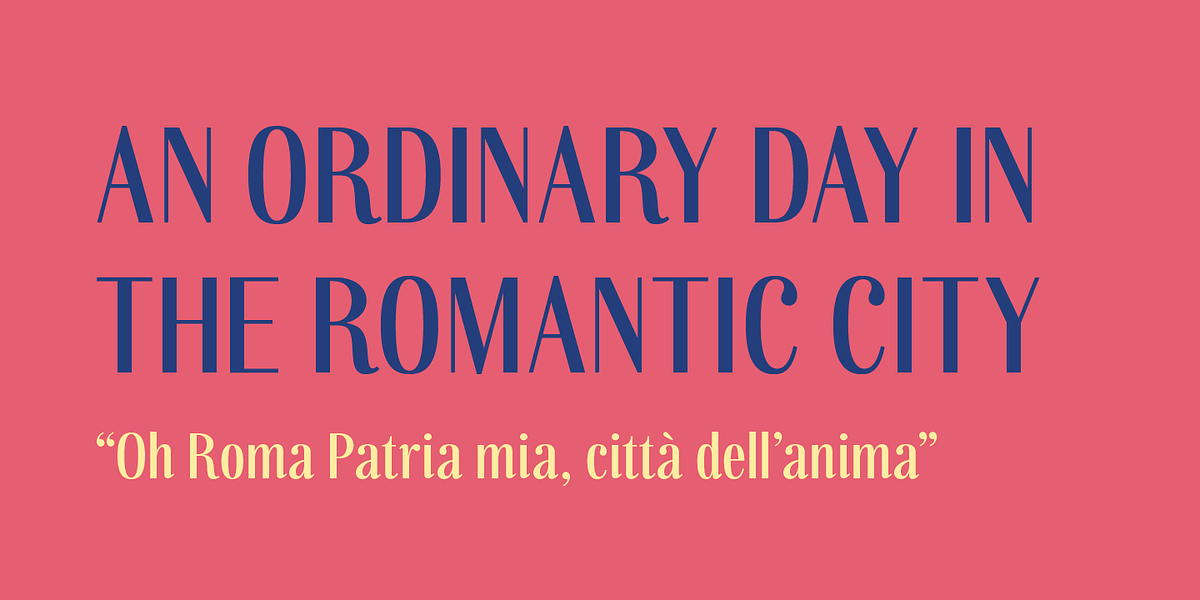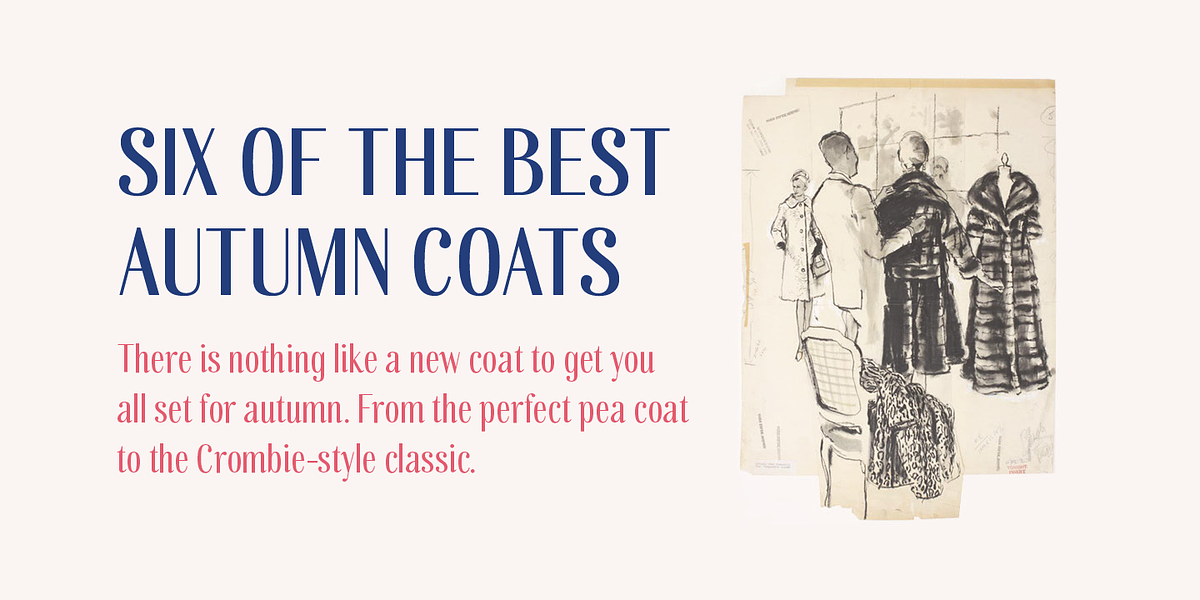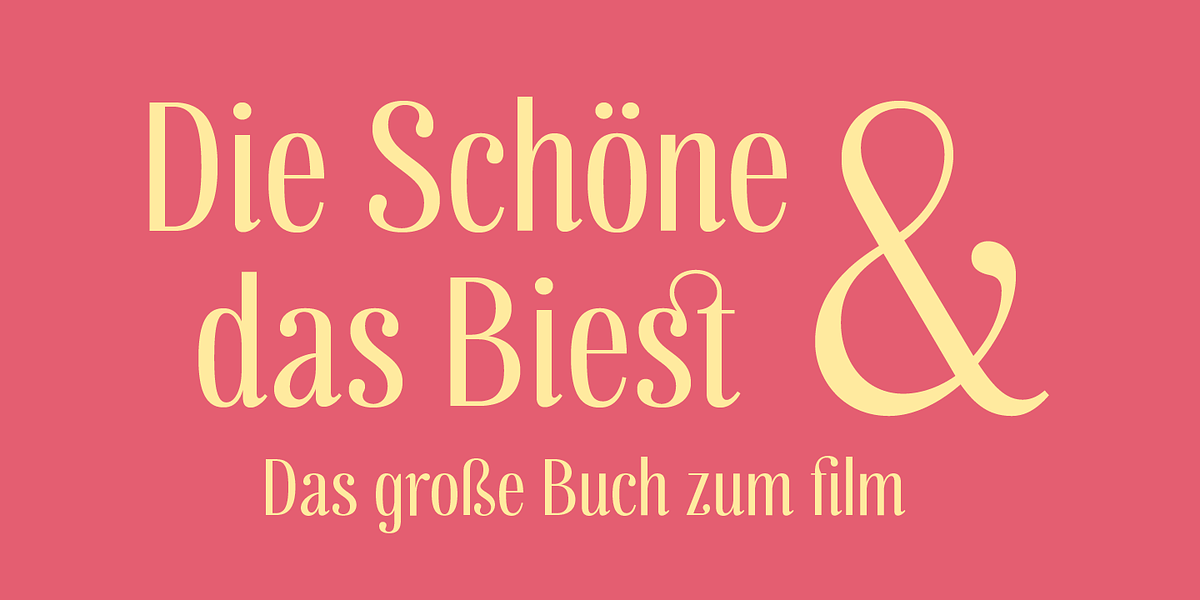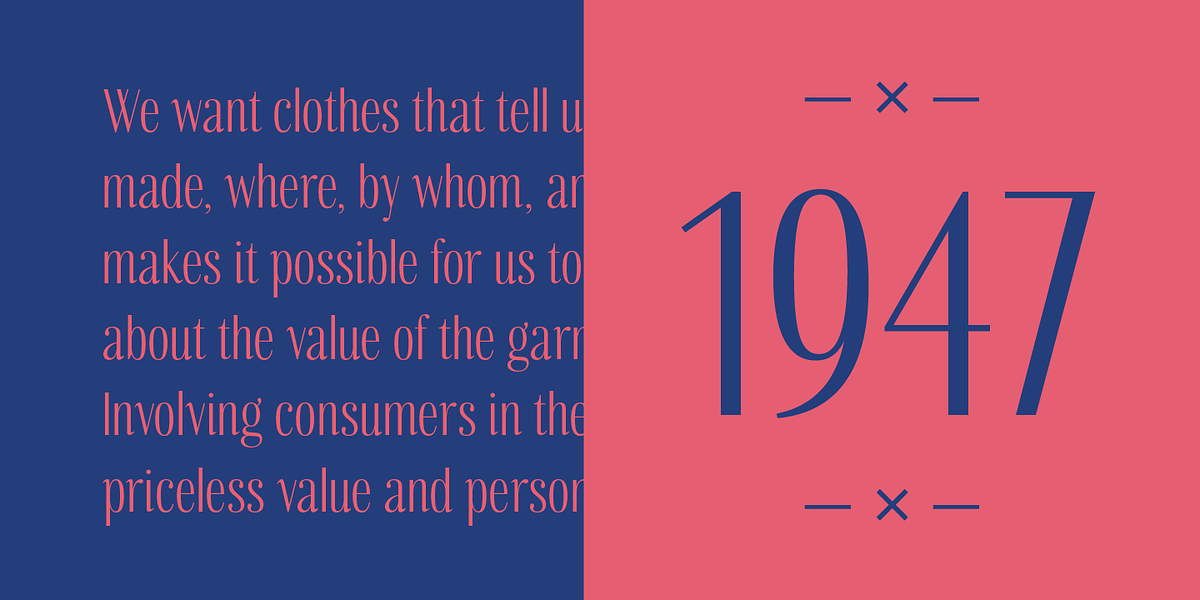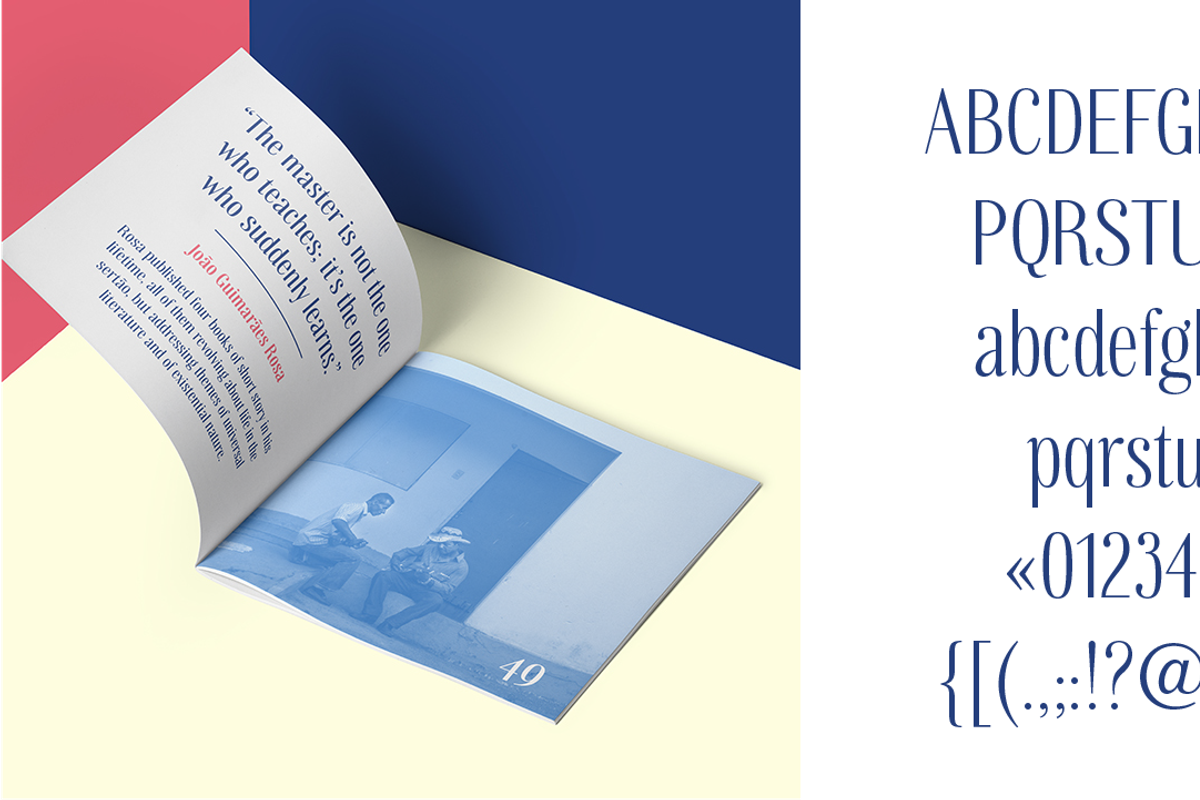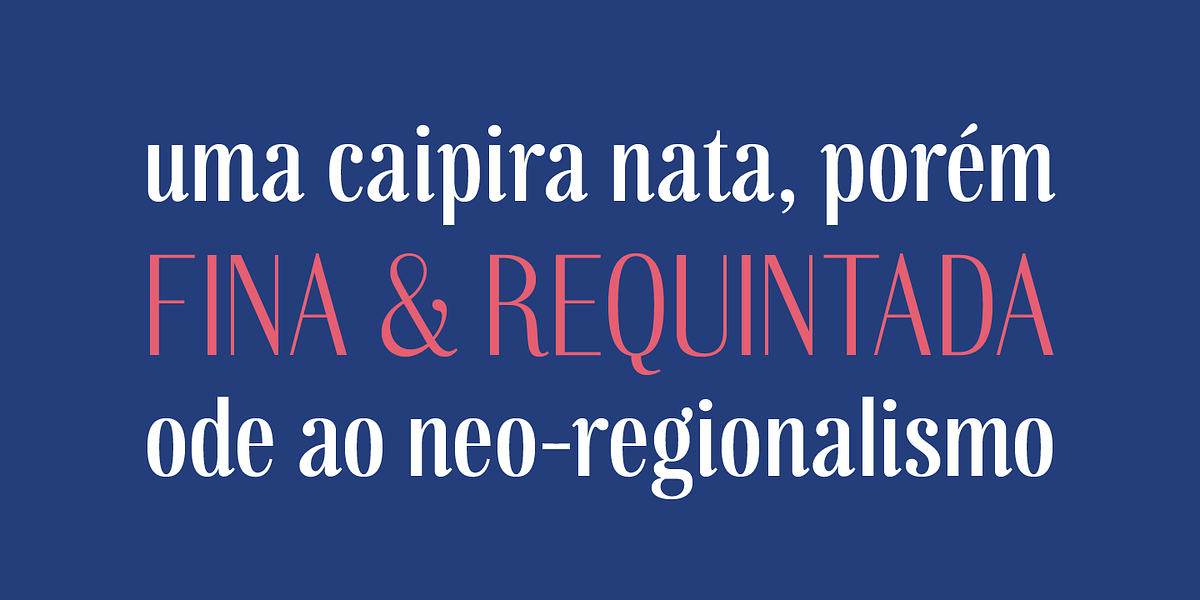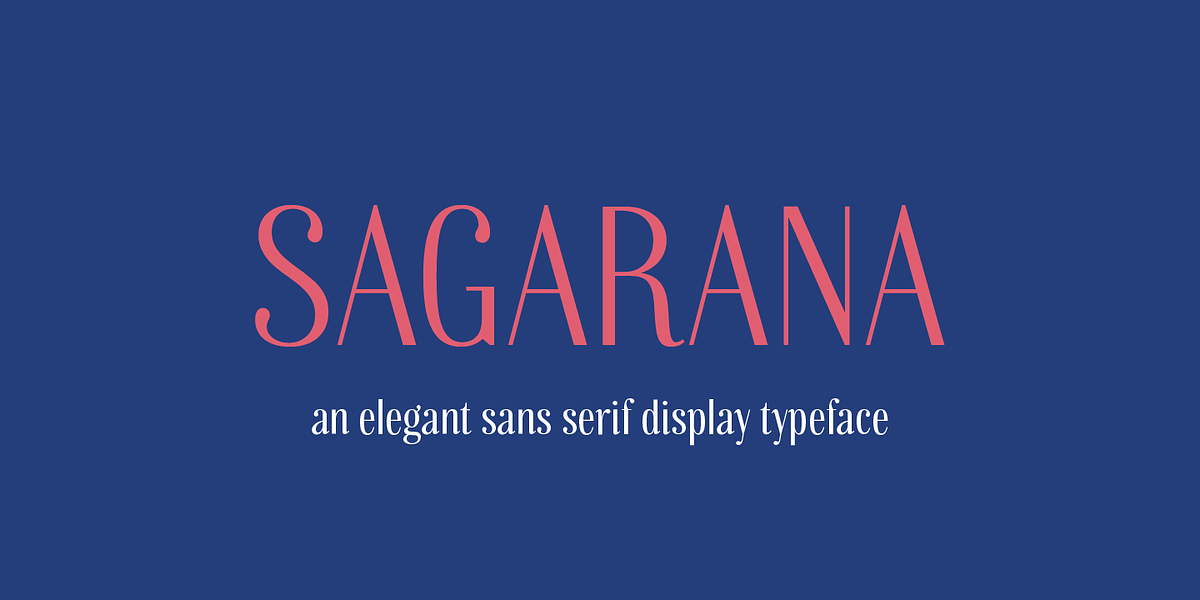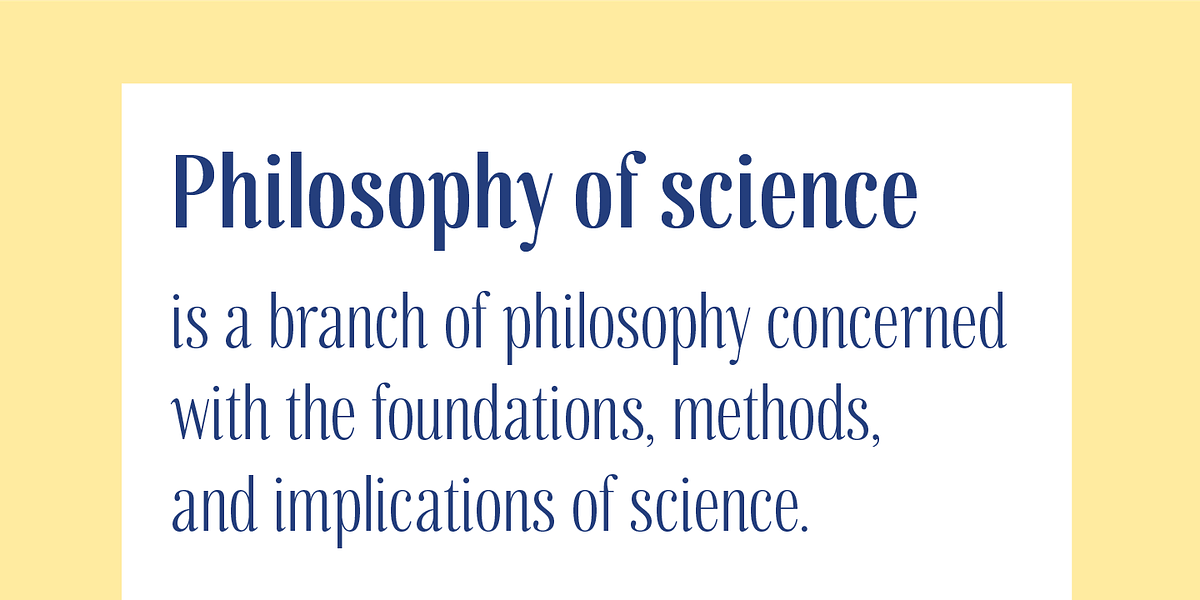
Sagarana
Sagarana is a modern sans serif typeface inspired by the style of Didone letterforms. It features a clean appearance with high contrast between thick and thin strokes. Elements like ball terminals and a narrow overall structure contribute to its stylish personality. The font's designer drew inspiration from a Brazilian book cover from the 1950s, and the name itself reflects a combination of 'saga' (story) and 'rana', a Tupi word meaning 'showing similarities'.